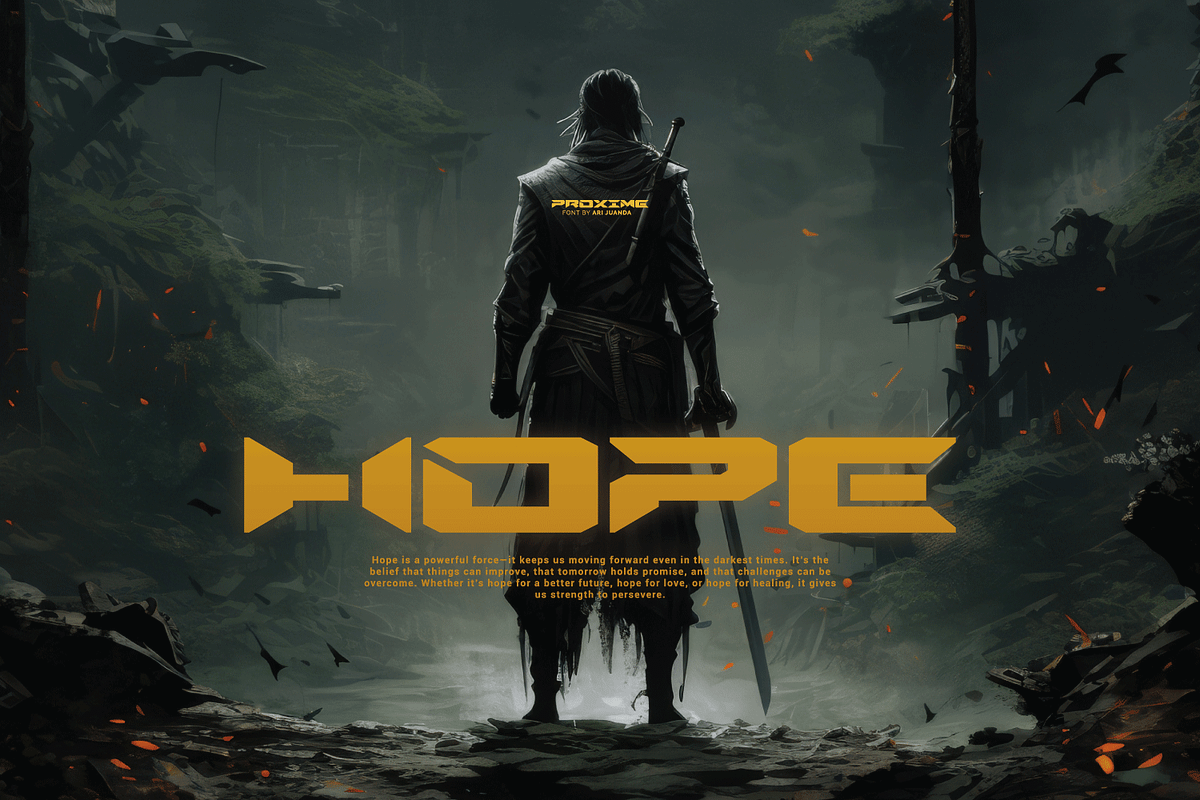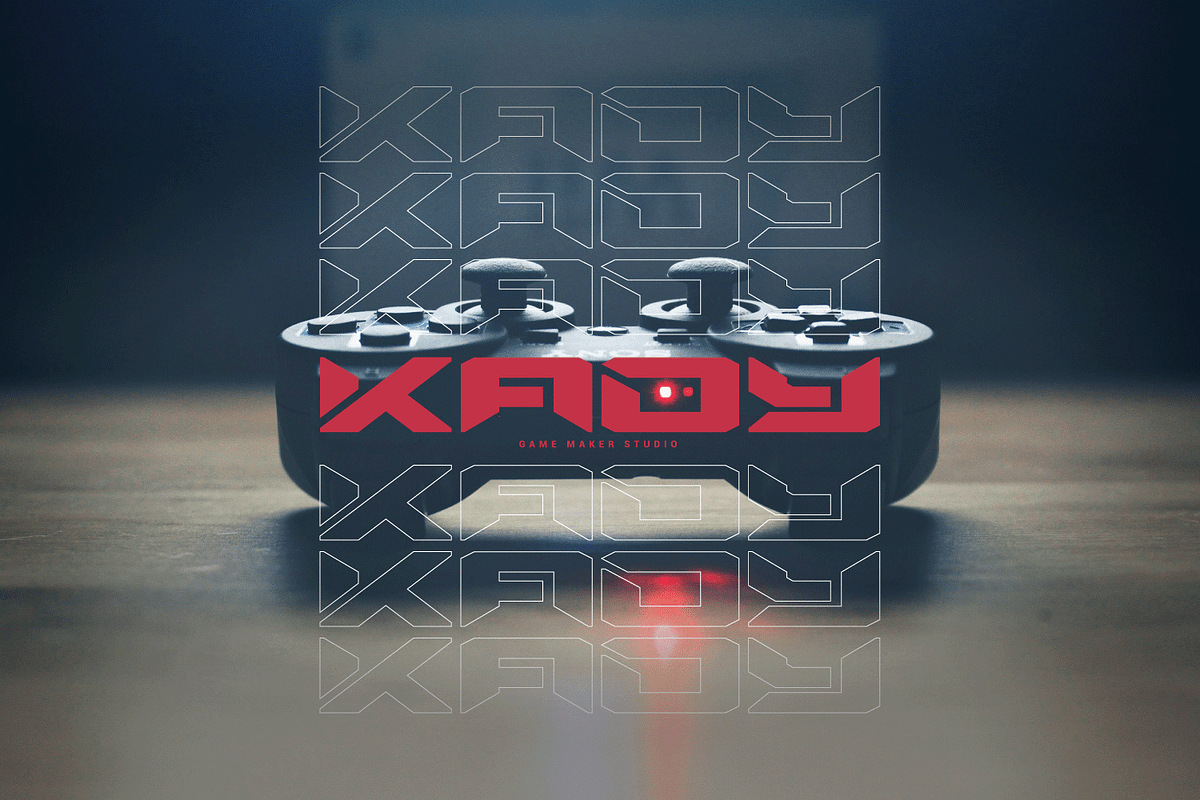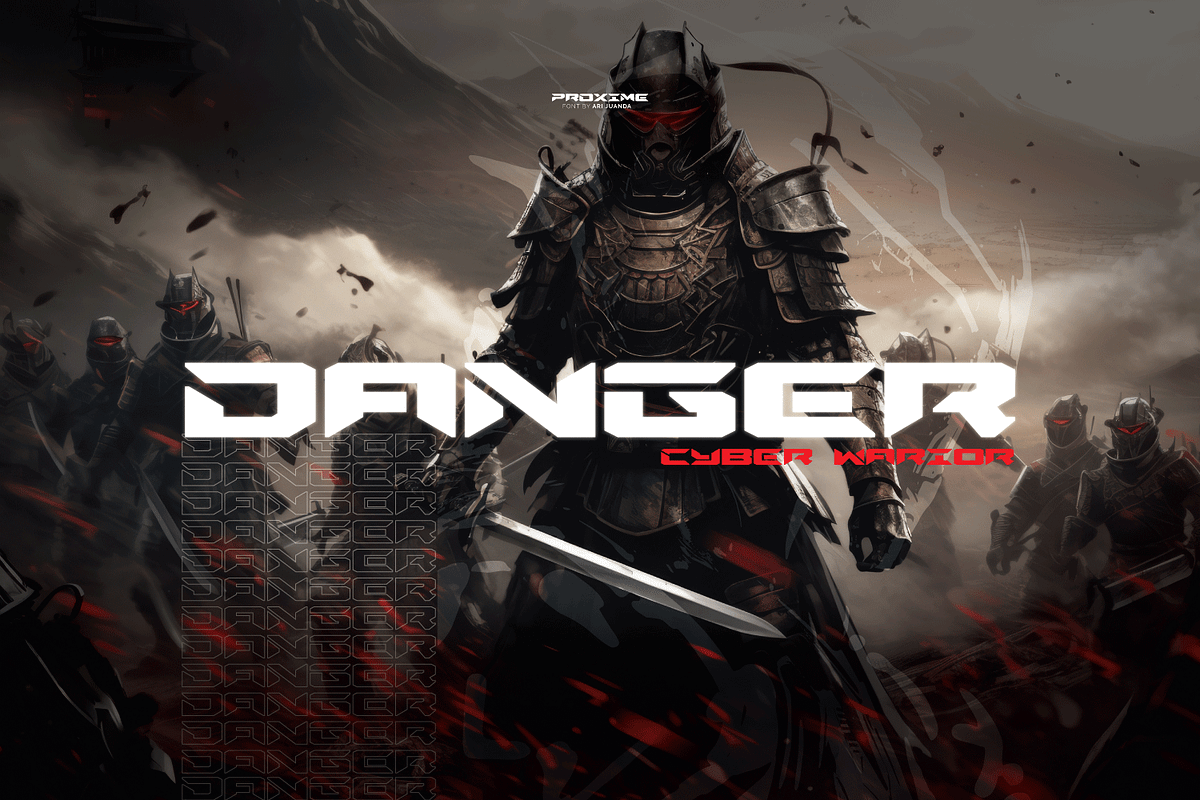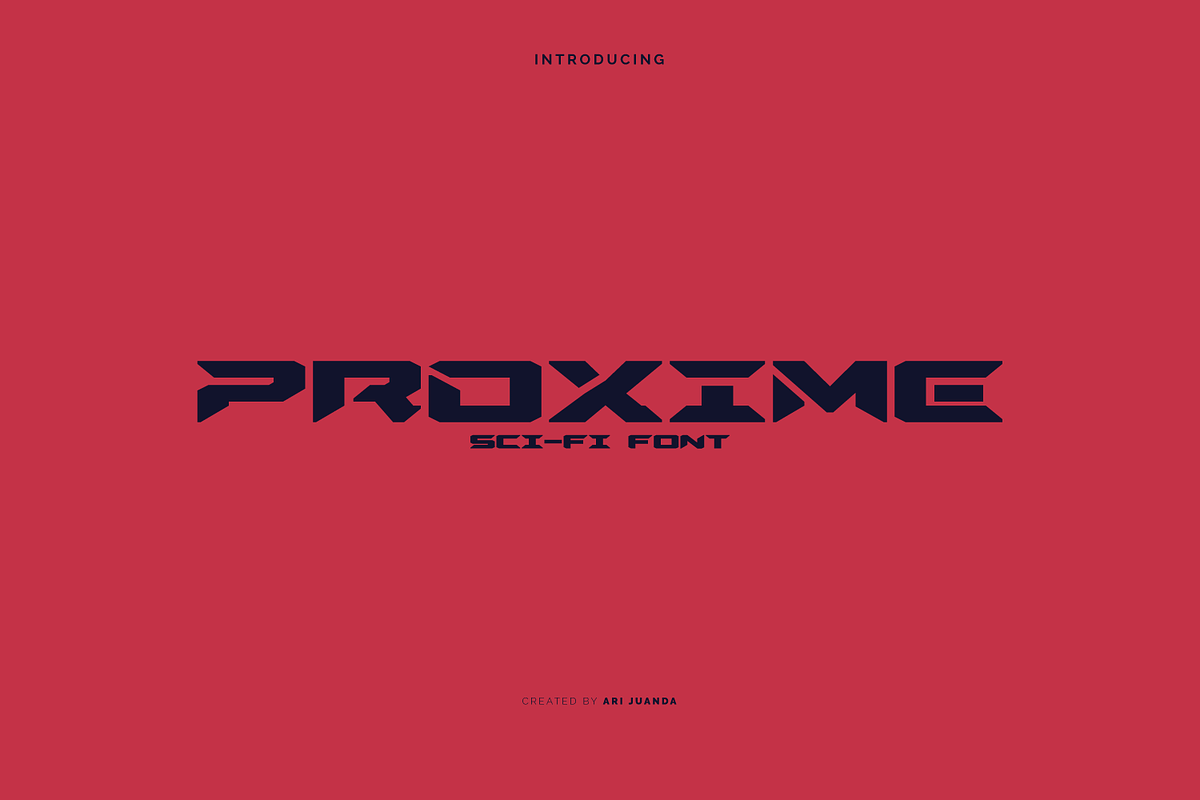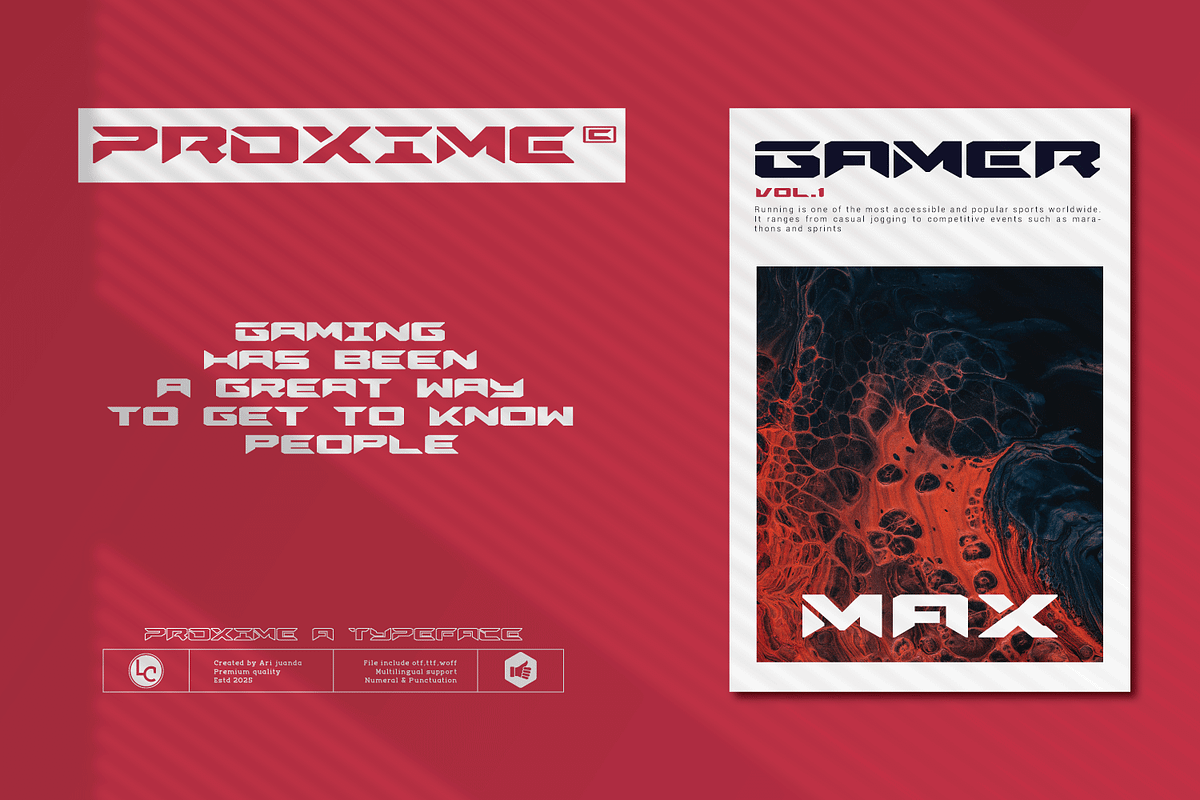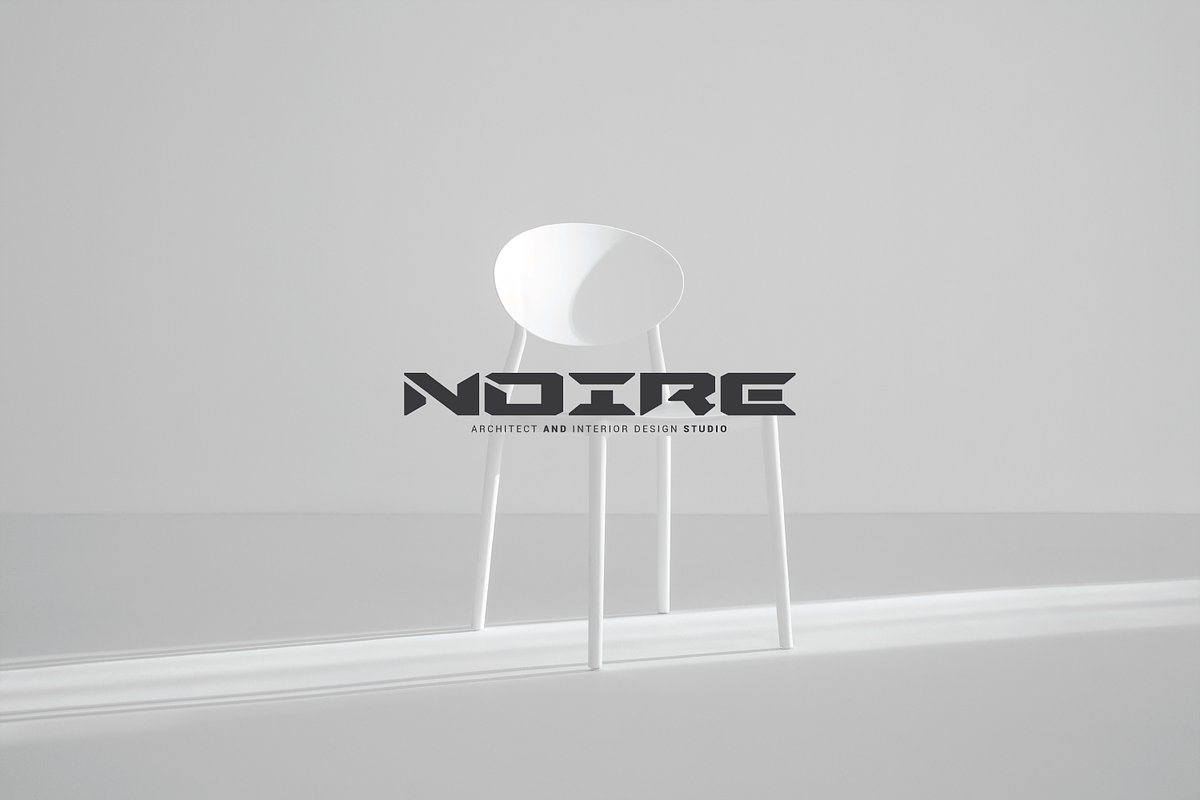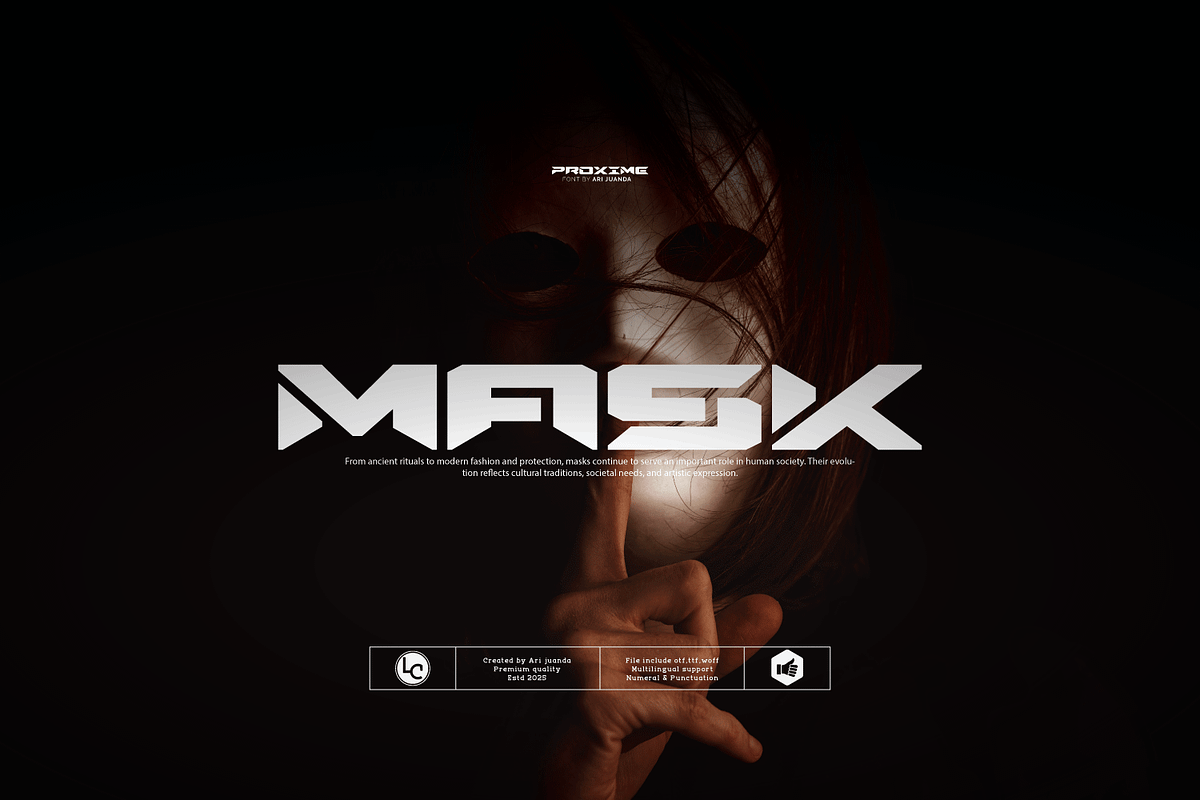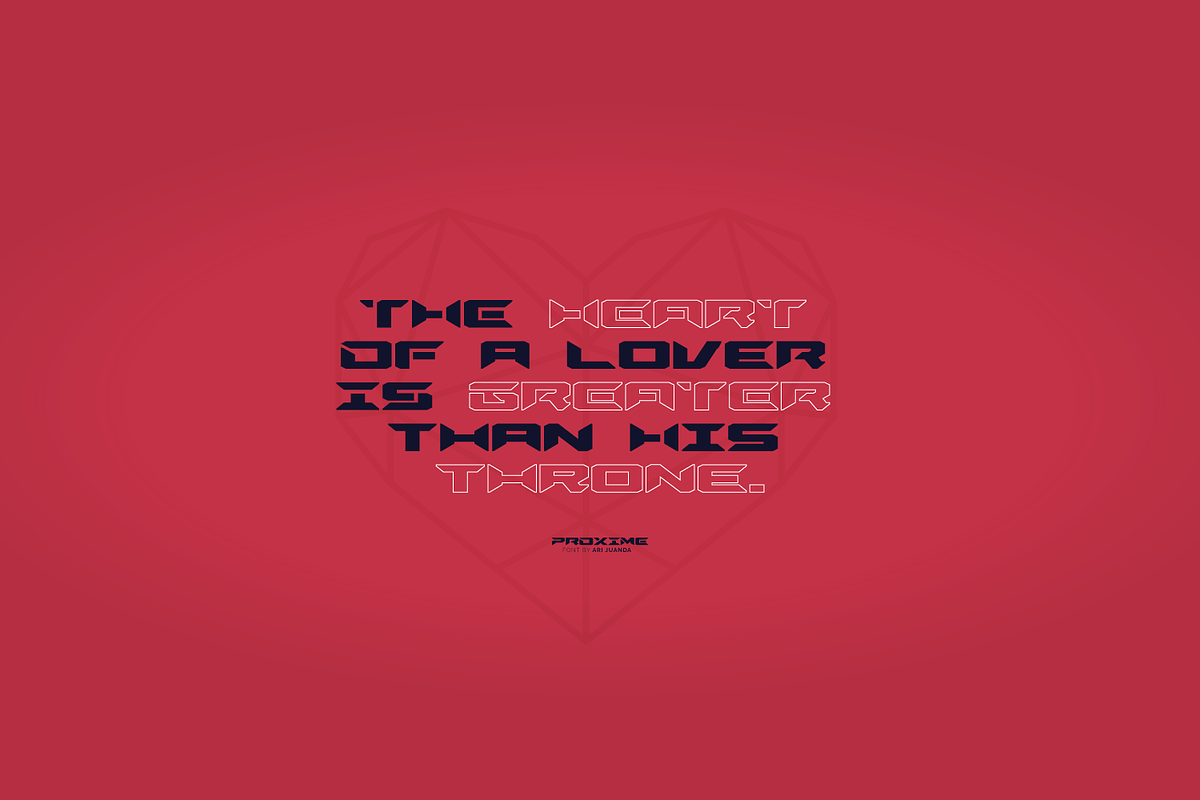
Proxime
Introducing the Proxime font, a typeface inspired by games and fictional films, this font is ideal for sports themes, science fiction, games, and futuristic themes. What You Get